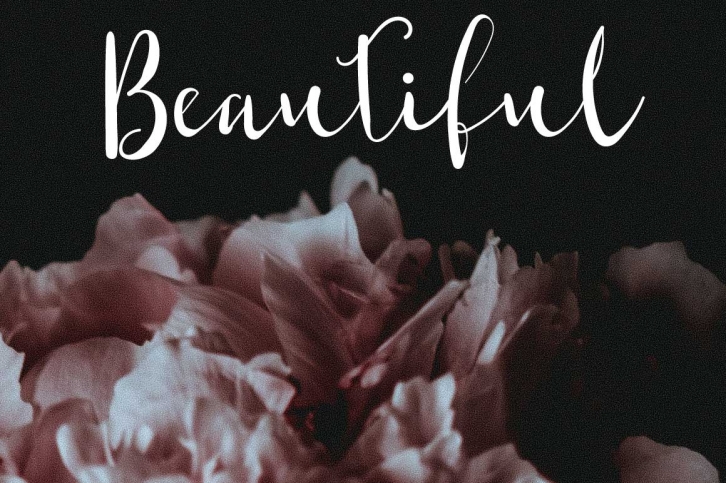
Shaktira Script is a beautiful font that was designed by Design 2 Last. It's a great choice for designers and creatives who need such a font. It was released on September 23, 2018 and the file size is 3.90 MB. Shaktira Script may give a more youthful, expressive and casual look to your project. It is a very beautiful, refined, elegant, and high-quality font.